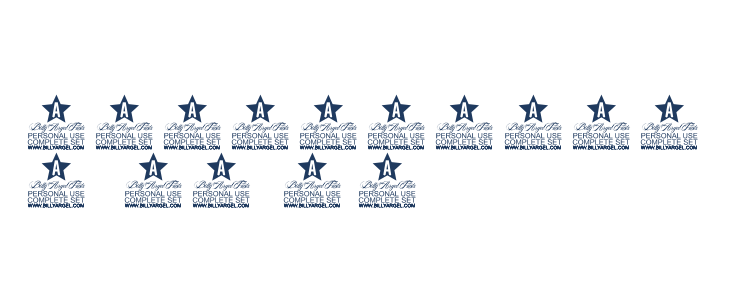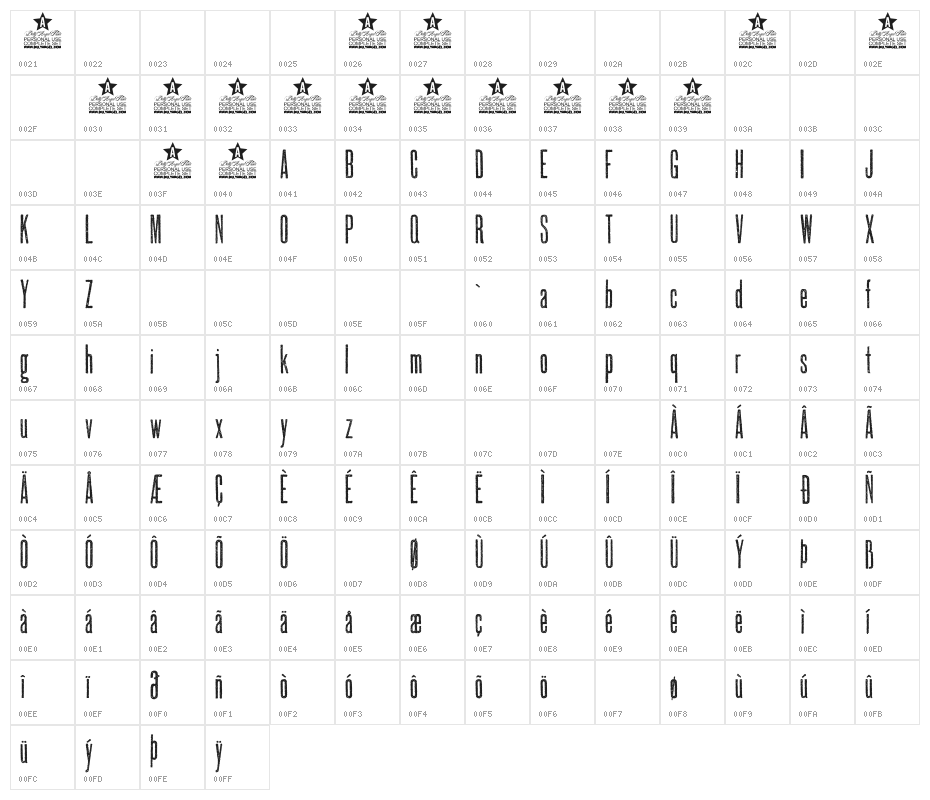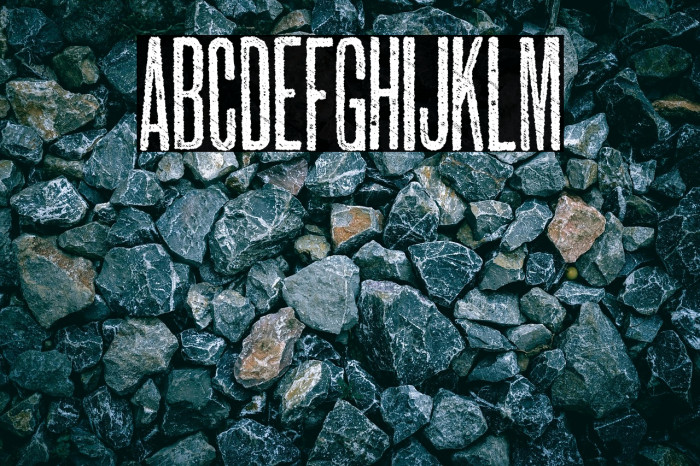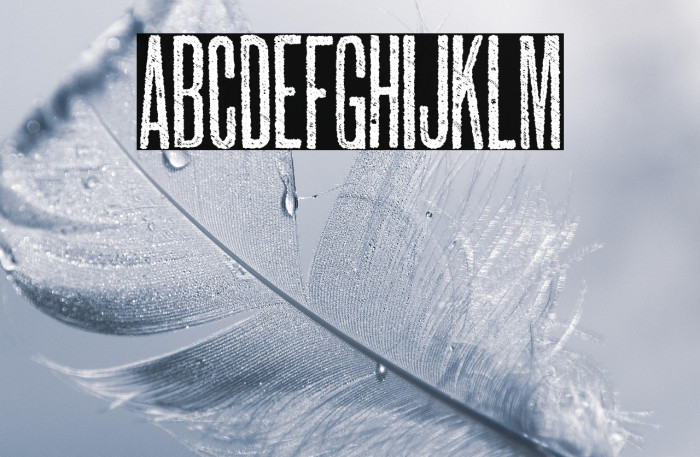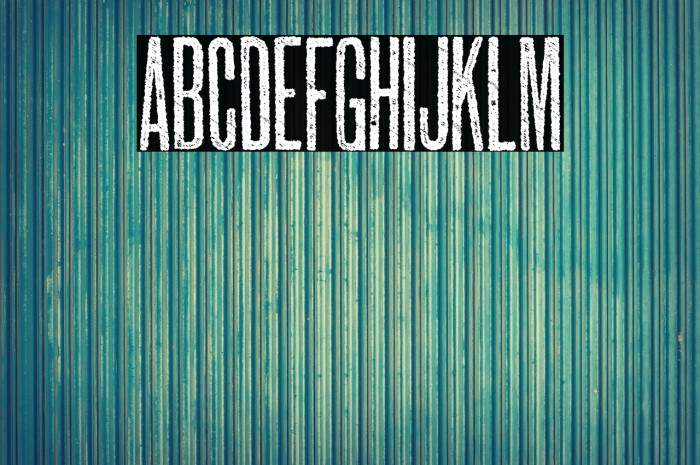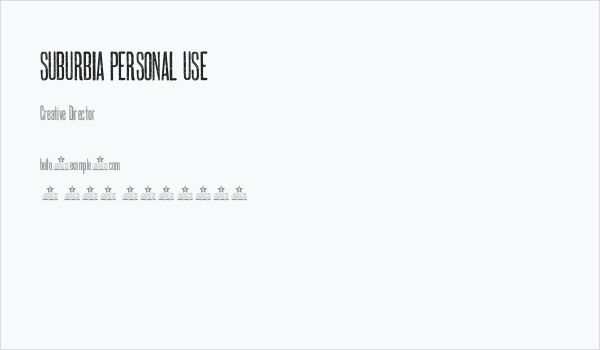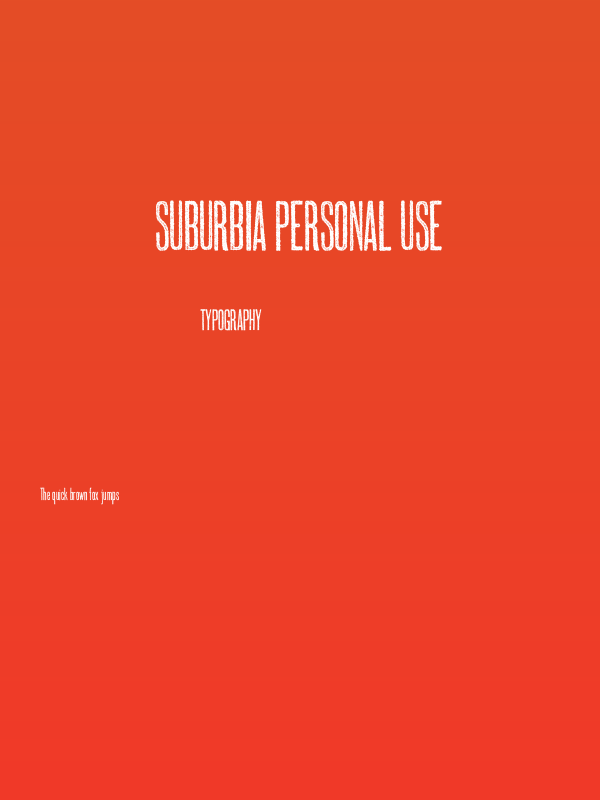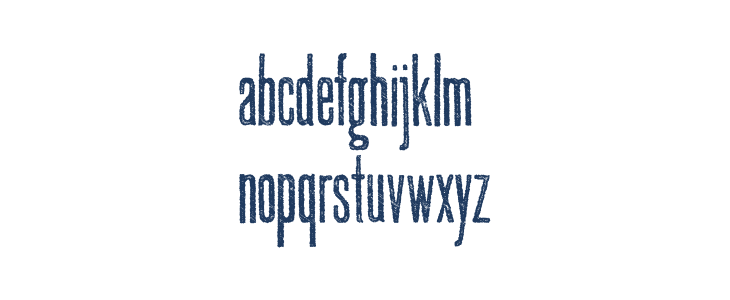
SUBURBIA PERSONAL USE Font
SUBURBIA PERSONAL USE Description
This font features a textured, distressed appearance that gives it a vintage and rugged feel. The characters are tall and narrow, with a consistent height across both uppercase and lowercase letters. The uppercase letters are bold and prominent, while the lowercase letters maintain a similar width, creating a cohesive look. The numbers and special characters follow the same design, ensuring uniformity throughout. The font's unique style makes it stand out, suitable for projects that require a touch of nostalgia or a handcrafted aesthetic.
Overall StyleVintage
Proposed ProjectsIdeal for branding, posters, album covers, and any design needing a vintage or handcrafted touch.